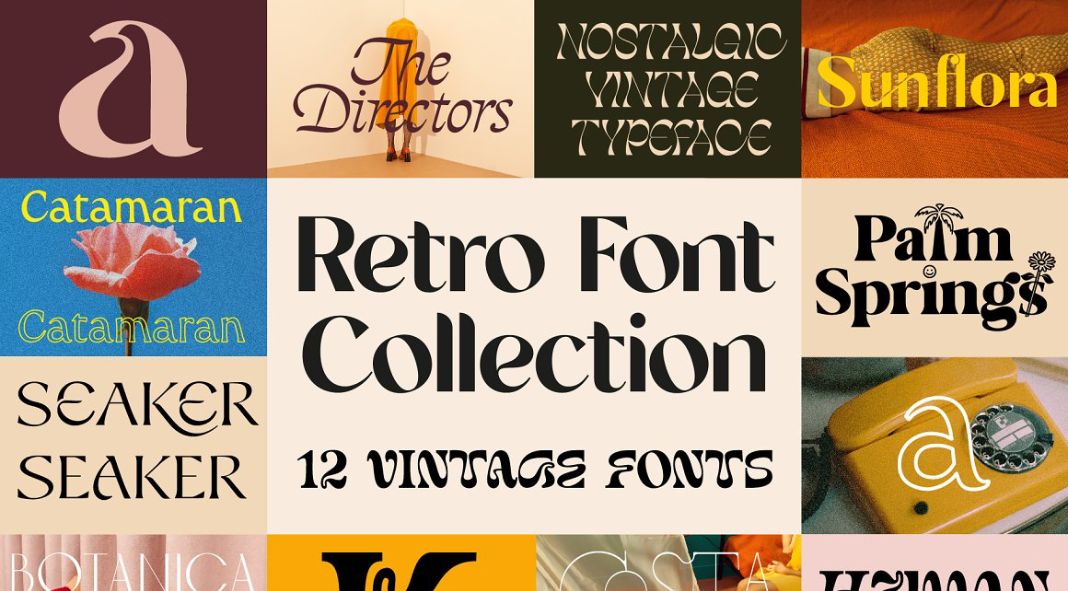
Download 12 authentic and totally unique retro fonts designed and published by Tropical Type.
This amazing retro font collection includes 12 of Tropical Type’s beautifully designed and most popular vintage typefaces. These work especially well for logos, posters, and t-shirt designs. Each font comes with various OpenType features. With all these different retro styles, the possibilities are endless! Get creative and bring your design projects back in time with these amazing retro fonts.
The collection includes these typefaces: Tangerine, Catamaran, Humankind, Sunshower Dreams, Costa Del Sol, Palm Springs, The Directors Italic, Sunflower, Seaker, Botanica, Hunter, and Farmhouse. When you download these fonts in one bundle, you will save 80%! Just click on the following link to see all individual typefaces that are included in the retro fonts bundle.